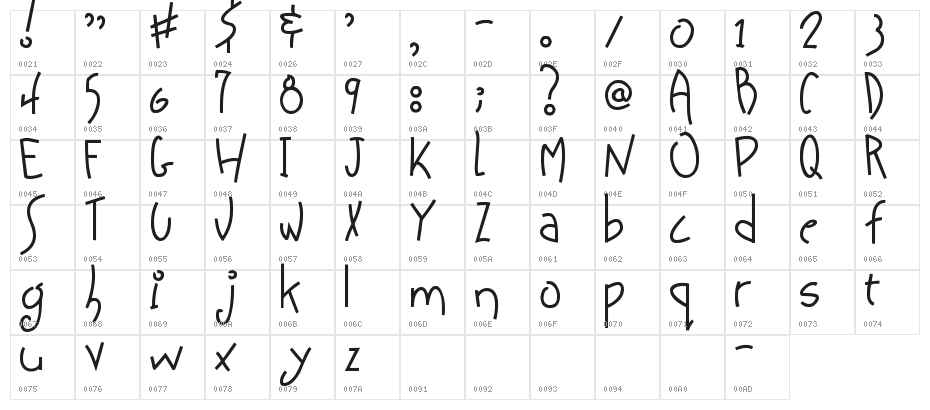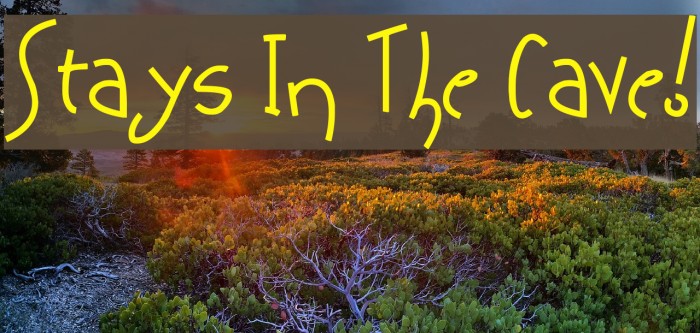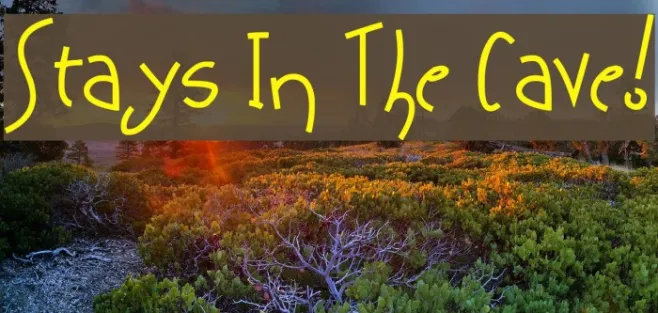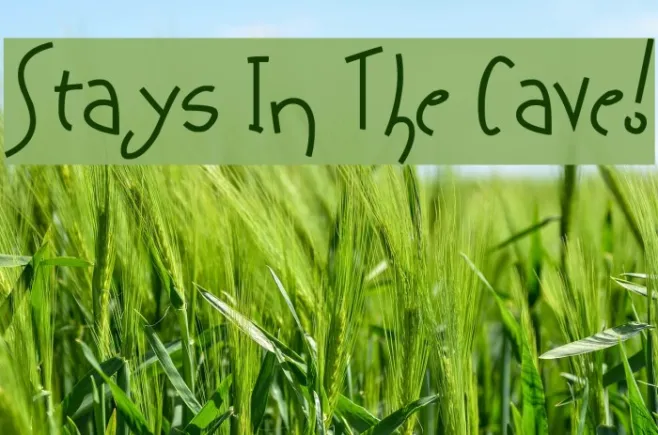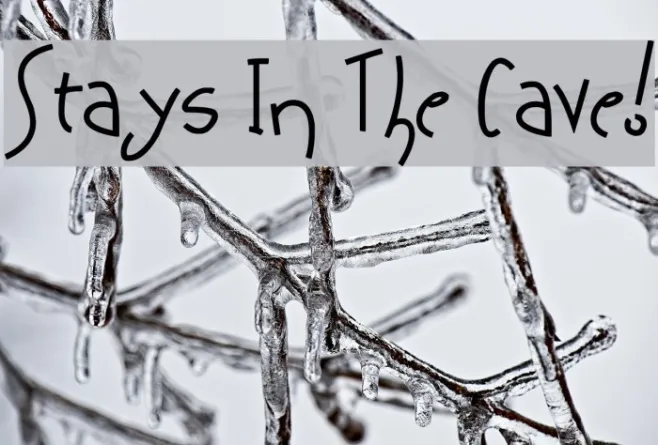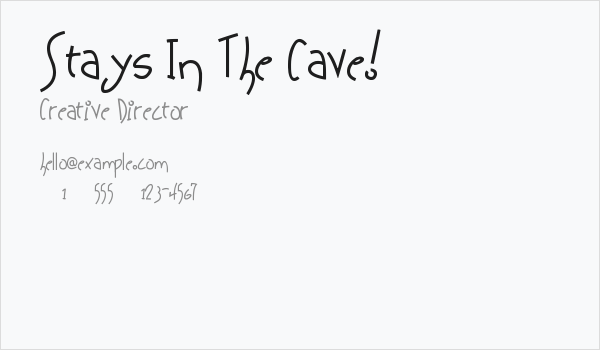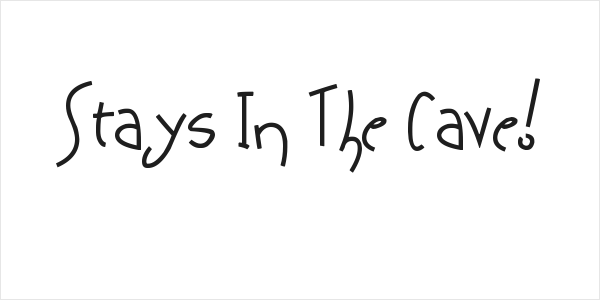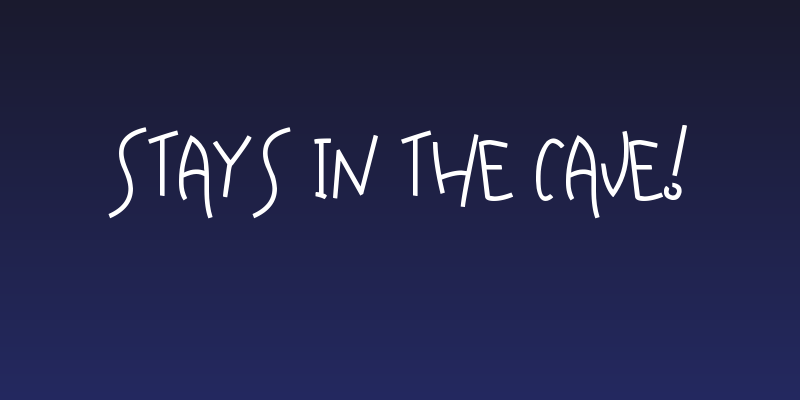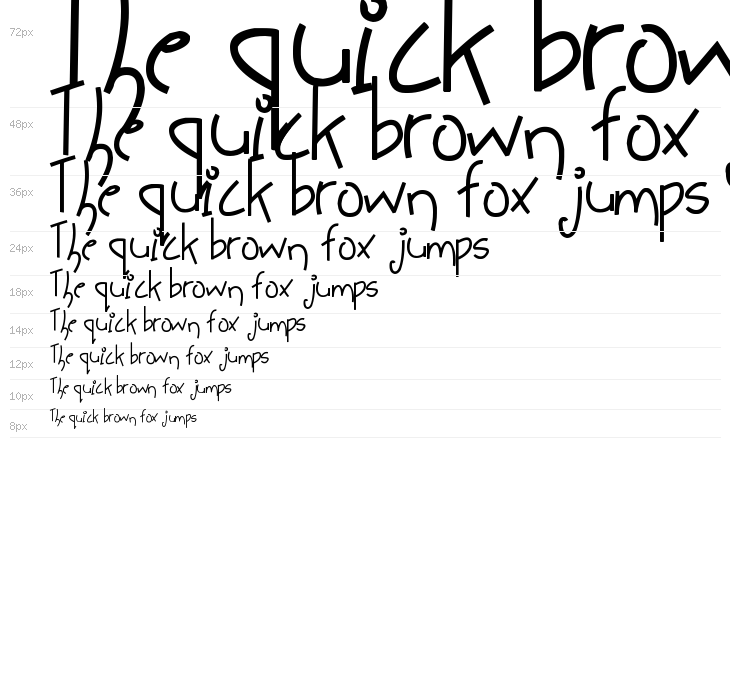
Stays In The Cave! Font
Stays In The Cave! Description
This font features a playful and whimsical handwritten style, characterized by its irregular and organic letterforms. The uppercase letters are tall and narrow, with a slight slant that adds to the casual feel. The lowercase letters maintain a consistent style, with rounded edges and varying heights that contribute to the font's informal appearance. Numbers and special characters follow the same playful design, making the font suitable for creative and fun projects. The overall look is reminiscent of a child's handwriting, evoking a sense of spontaneity and creativity.
| Proposed Projects | Ideal for children's books, playful branding, greeting cards, and casual invitations. |